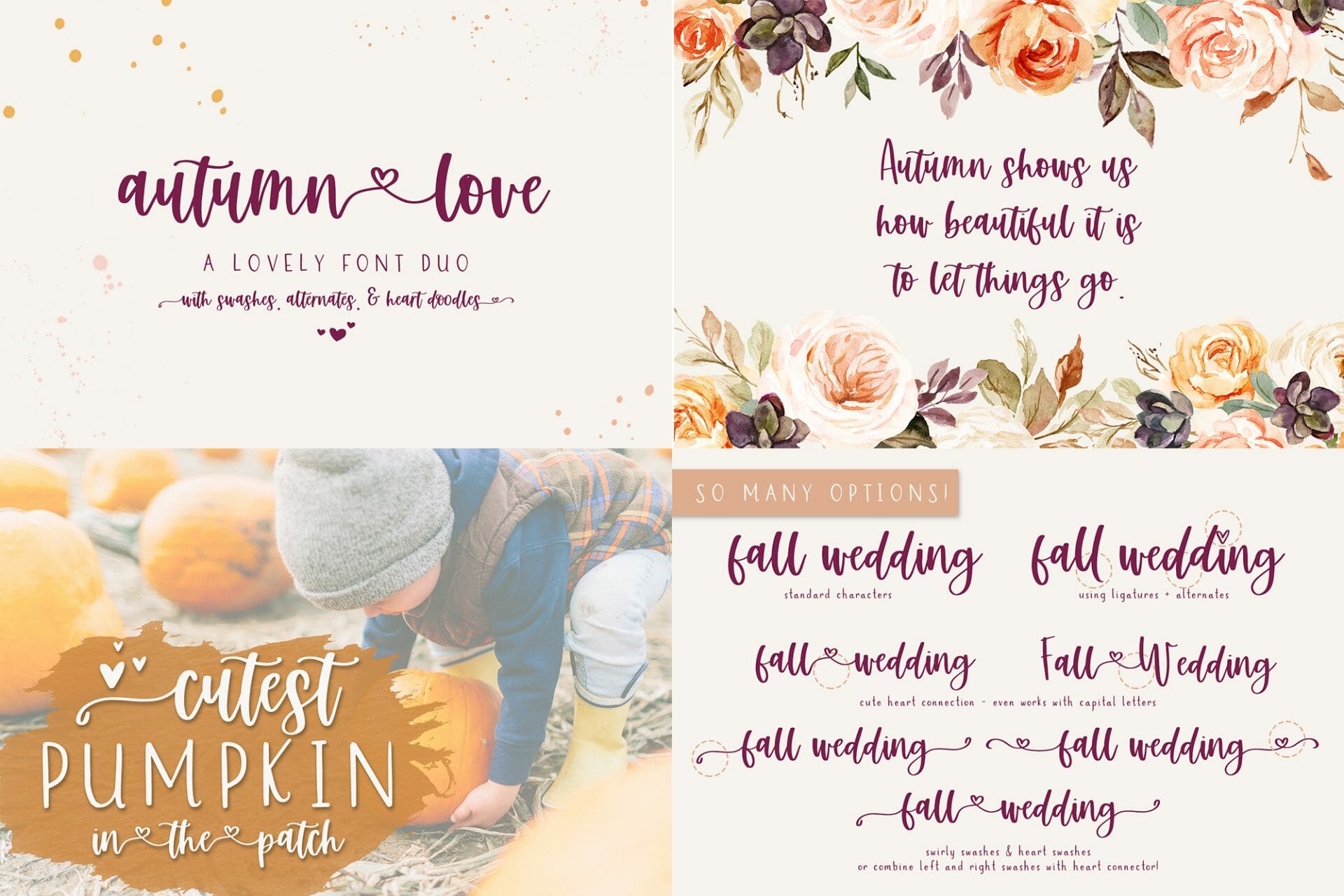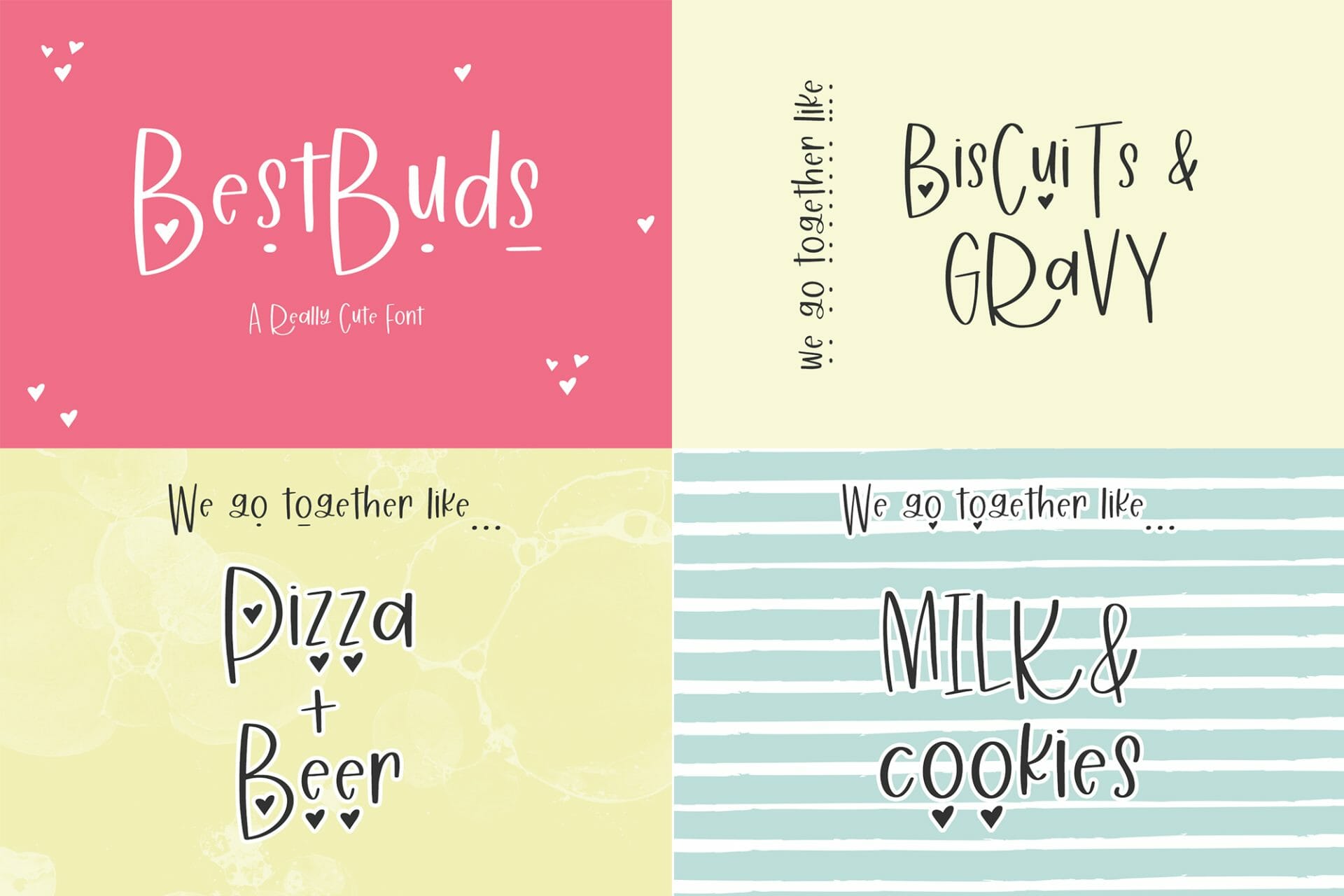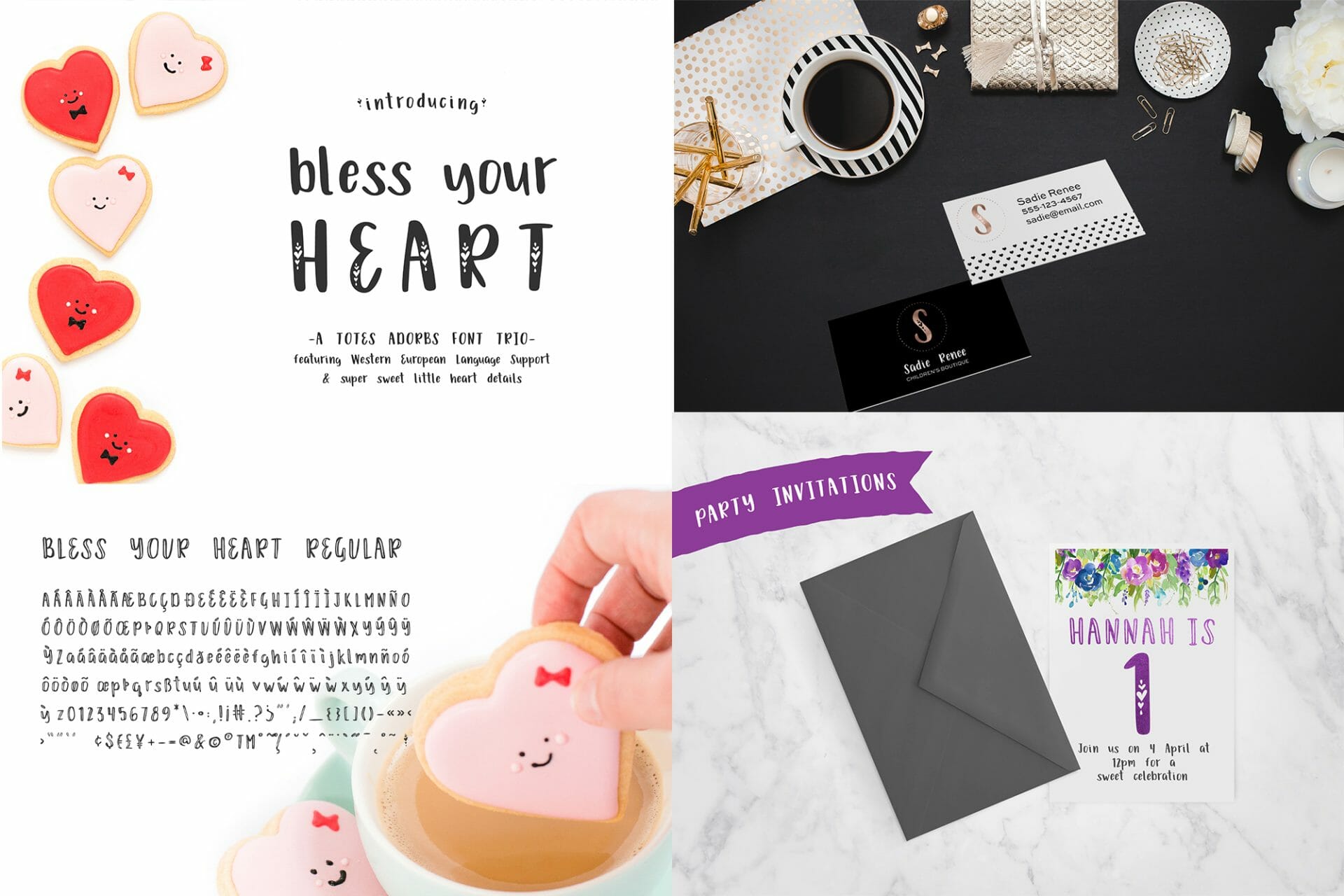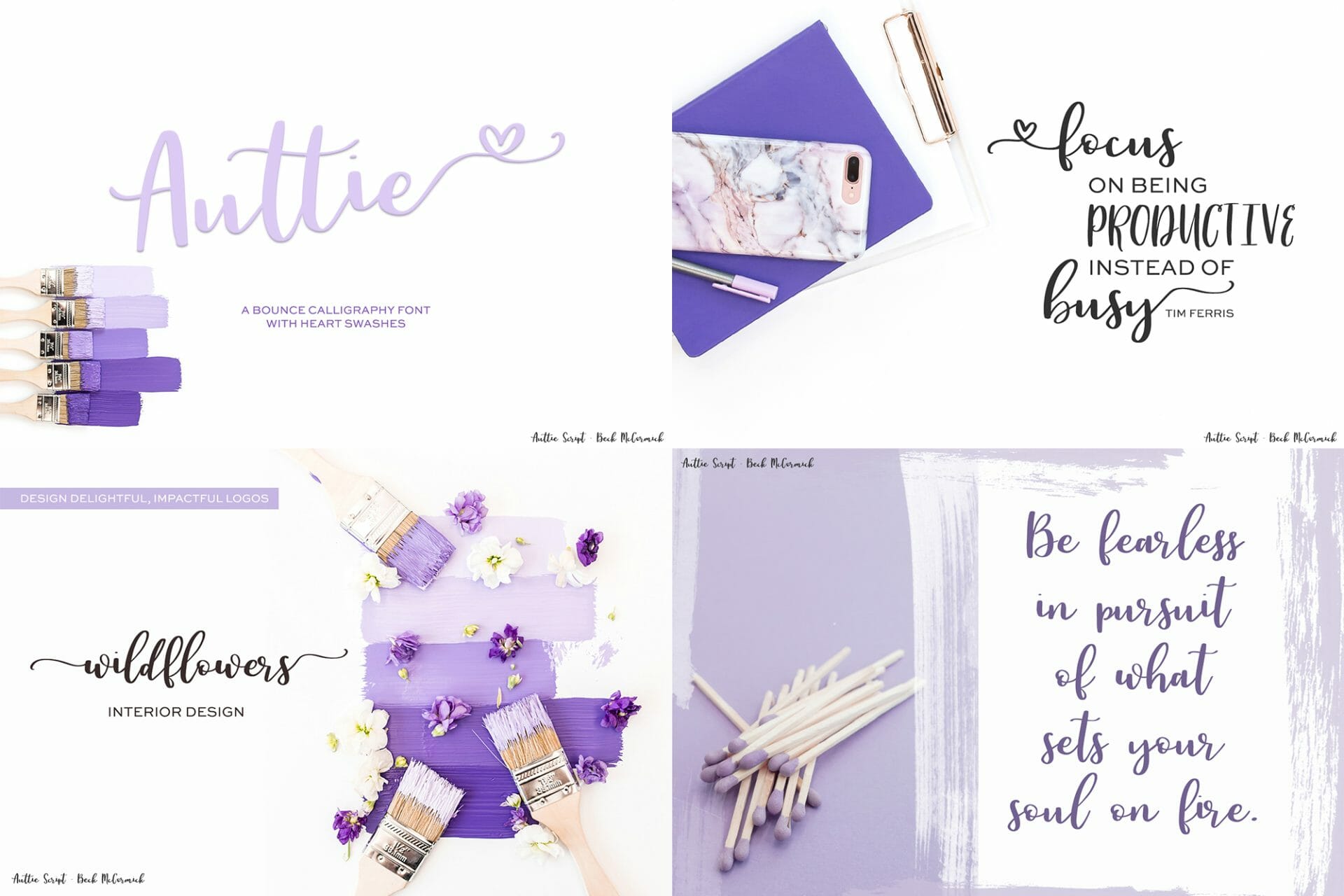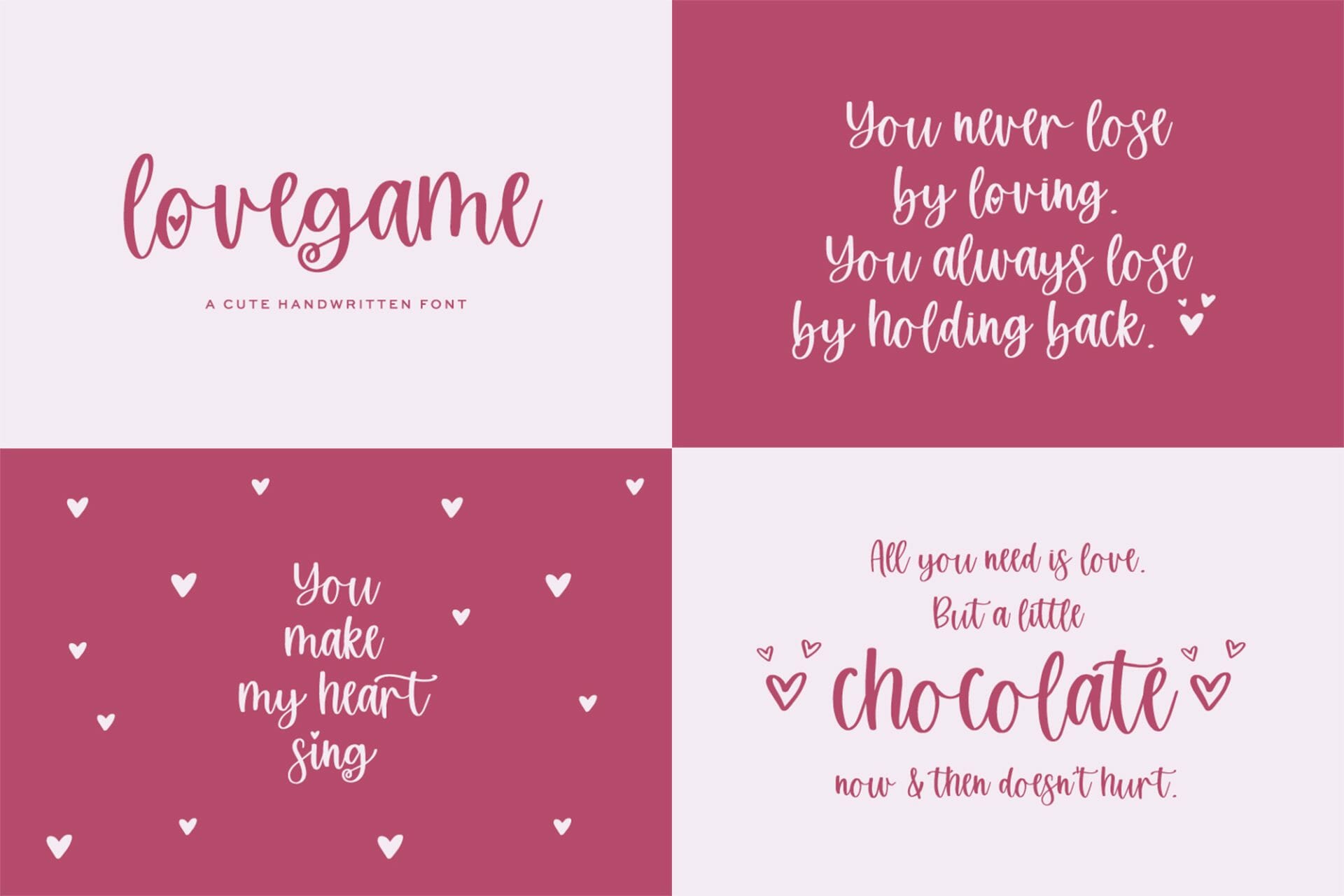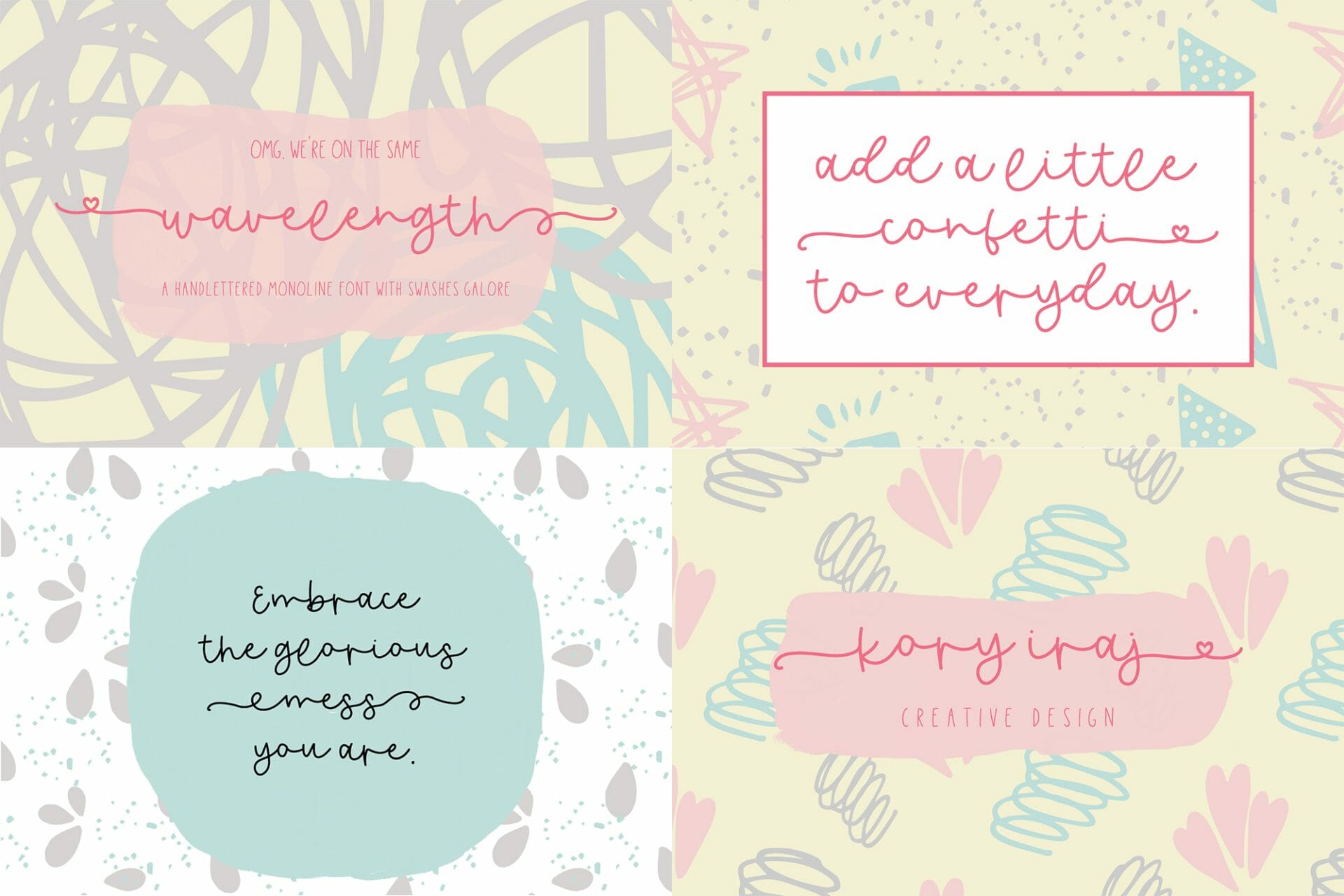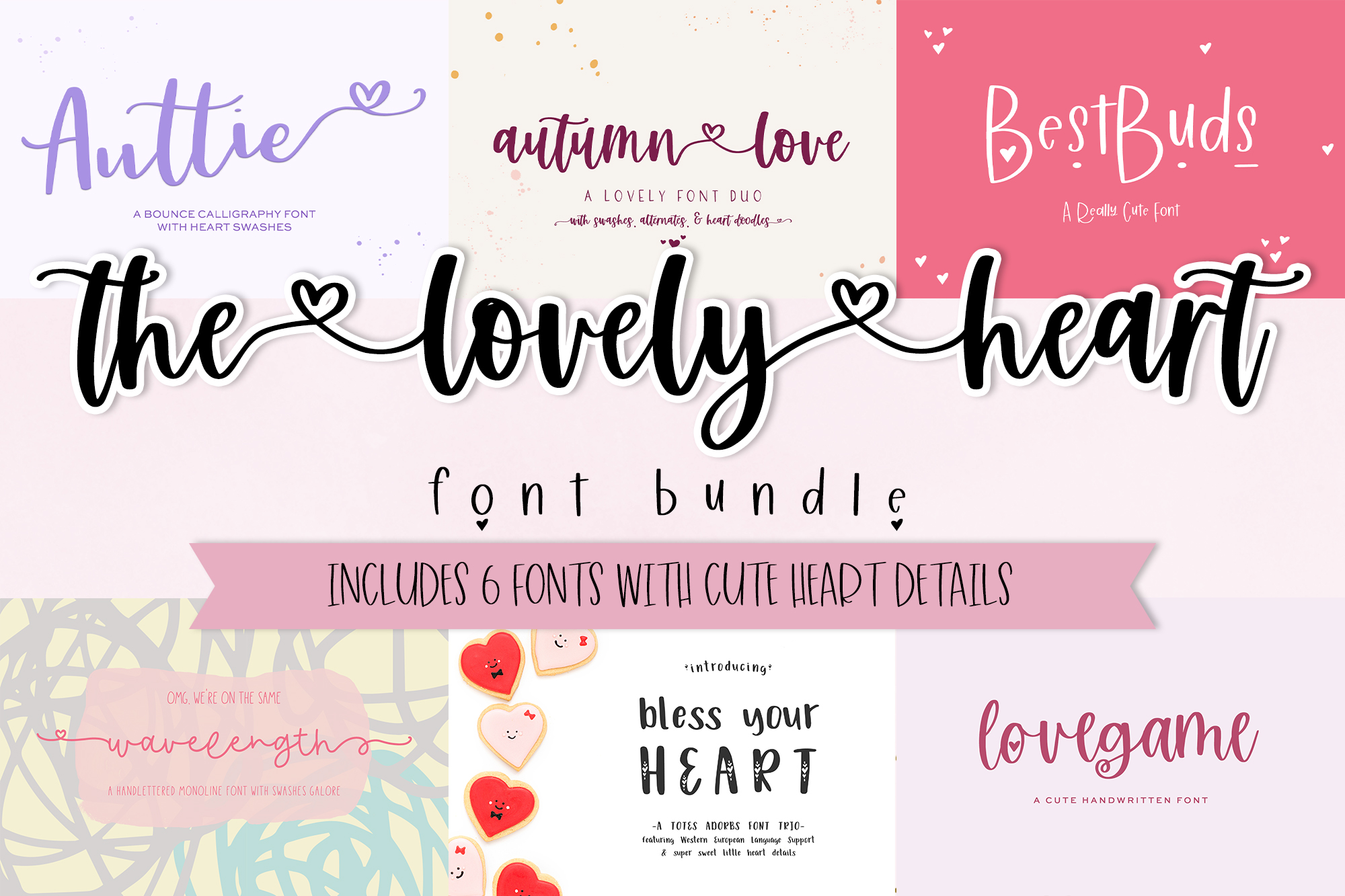
The Heart Font Bundle
The Lovely Heart The Handwriting Font Bundle is the new chic, stylish bundle for all of your handwritten font needs! This bundle includes six fonts with a heart theme, perfect for lovey dovey projects, logo design, quote graphics, and crafting!
Auttie Script
Autumn Love Sans
Autumn Love Script
Best Buds
Bless Your Heart
Bless Your Heart Inline
Bless Your Heart Hearts
Lovegame
Wavelength
This bundle includes:
– Auttie Script with heart swashes
– Autumn Love Font Duo (1 script, 1 sans font) with heart swashes and connecting heart options, as well as heart doodles
– Best Buds Sans with hearts on lowercase characters & many more options
– Bless Your Heart (regular, hearts, and inline versions)
– Lovegame with adorable hearts on select letters
– Wavelength Script with heart swashes & more